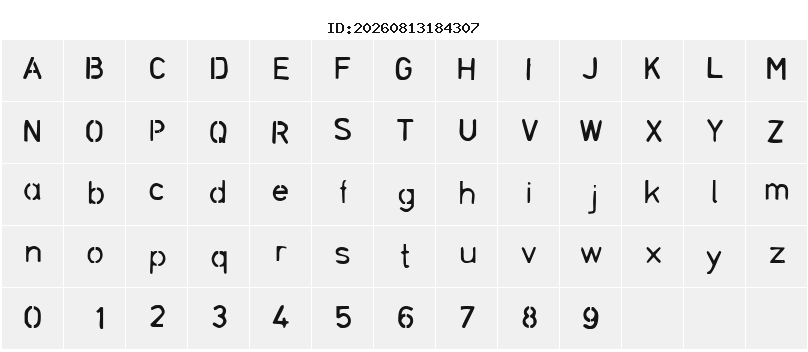
• Font Name: stencil bash
• Full Font Name: stencil bash
• PostScript Name: Stencilbash
About stencil bash.ttf
stencil bash.ttf is a modern, elegant sans-serif font designed for ultimate readability and visual harmony. Perfect for branding, headlines, web design, and print materials.